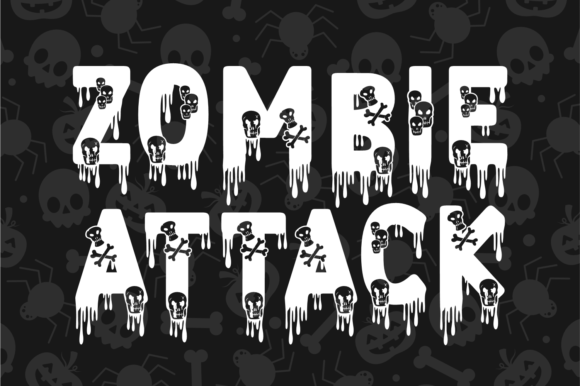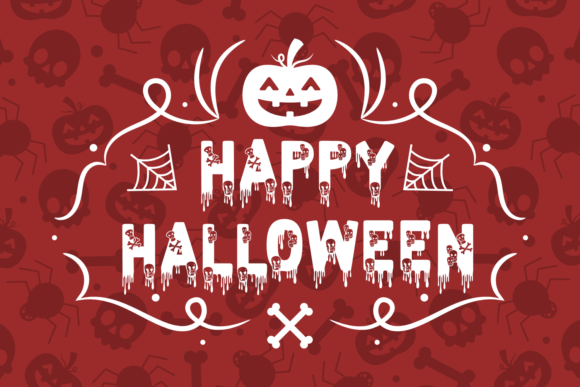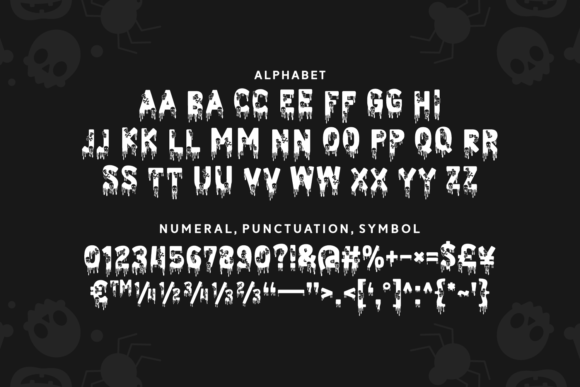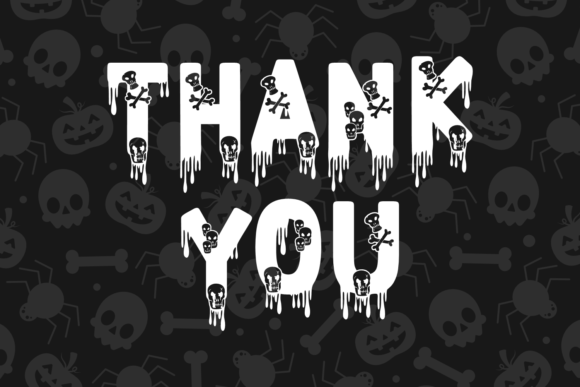
The Perfect Font for a Spooky Night: Blood on Skull Font
Have you ever been working on a design project and suddenly, the perfect font pops into your mind? Maybe it’s a creepy, haunted mansion or a spooky graveyard that sparks your creativity. For me, it was a Halloween-themed invitation that needed just the right font to send shivers down my spine. That’s when I stumbled upon the Blood on Skull Font – a creepy-looking decorative font that’s sure to add a spooky note to your creations.
The Blood on Skull Font is a PUA encoded font that features blood-dripping characters, skulls, and bones, making it a perfect match for Halloween-themed projects. As a designer, you’ll appreciate the versatility of this font, which can be used for a wide range of projects, from spooky invitations to eerie social media graphics.
Blood on Skull Font Key Features
- Unique Characteristic: The Blood on Skull Font features a unique, hand-drawn design with intricate details and textures, giving it a horror-inspired, gothic look.
Blood on Skull Font Review
Overall, I’d say the Blood on Skull Font has some unique qualities that make it stand out, but it also has some limitations. Let’s dive in and see what works well.
- The font’s edgy, gothic aesthetic is perfect for projects that require a dark, mysterious vibe.
- The bold, chunky lines create a sense of depth and texture that’s engaging to look at.
- The font is highly customizable, with plenty of options for adjusting the weight, spacing, and style to fit your needs.
- The font’s rough, distressed look may not be suitable for all projects, especially those that require a more professional or clean aesthetic.
- The font’s bold lines can make it difficult to read at smaller font sizes or in certain contexts.
- The font’s edginess may come across as trying too hard to be cool, which can be off-putting to some users.
Overall, I think the Blood on Skull Font is a solid choice for projects that require a dark, edgy vibe. However, it may not be the best fit for every project or audience. With some careful consideration of the font’s limitations, it can be a great addition to your design toolkit.
Some popular use cases for Blood on Skull font include:
- Halloween-themed designs and decorations.
- Horror movie posters and promotional materials.
- Gothic-inspired fashion and lifestyle designs.
Alternatives to “Blood on Skull Font” for Designers
Skullbreaker Font
Skullbreaker Font is a modern, bold sans-serif font with a hint of edginess, perfect for designs that require a touch of darkness and mystery. It’s ideal for use in horror-themed projects, punk-inspired designs, and anything that needs a bold, attention-grabbing look.
Compared to Blood on Skull Font, Skullbreaker Font is more modern and sleek, with a cleaner design and better legibility. While Blood on Skull Font is more of a distressed, vintage-inspired font, Skullbreaker Font is more versatile and can be used in a wider range of designs.
Graviser Font
Graviser Font is a bold, gothic-inspired font with a sense of elegance and sophistication. It’s perfect for use in luxury branding, high-end fashion designs, and any project that requires a touch of mystery and intrigue.